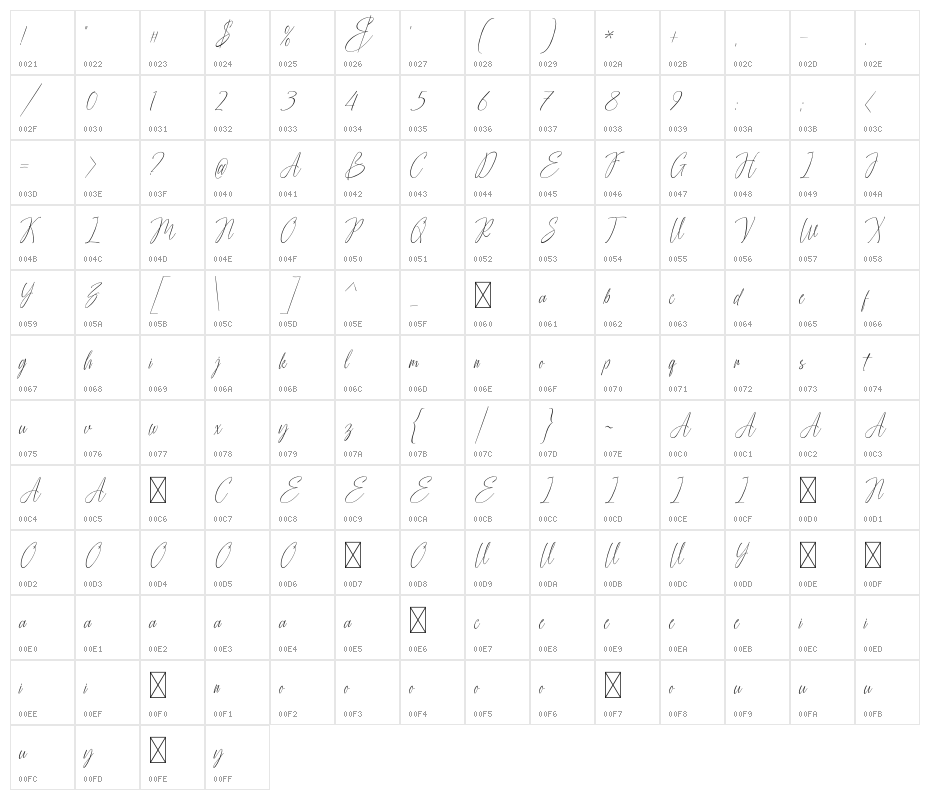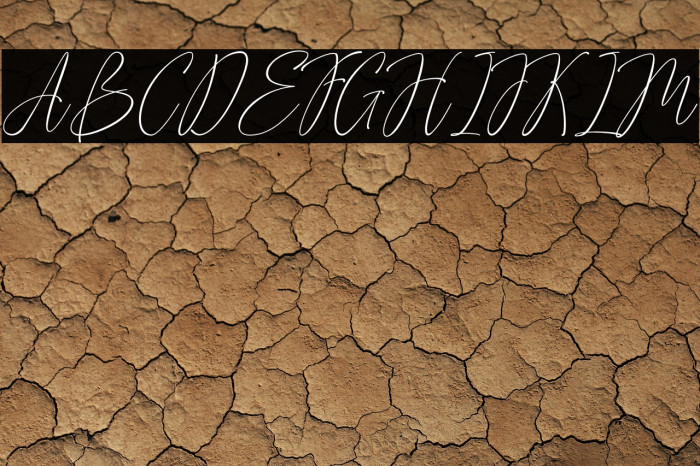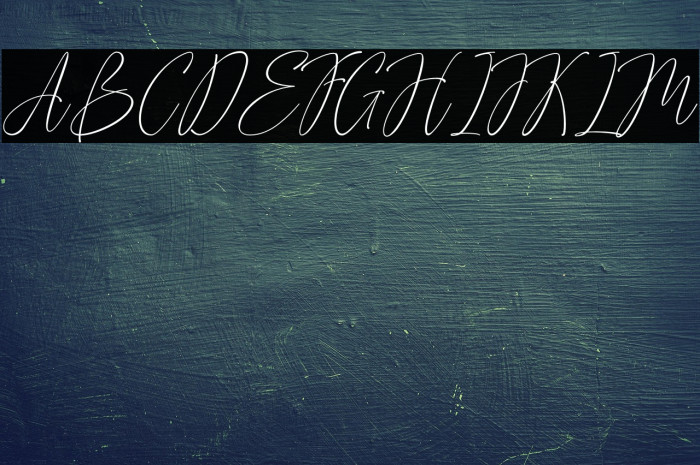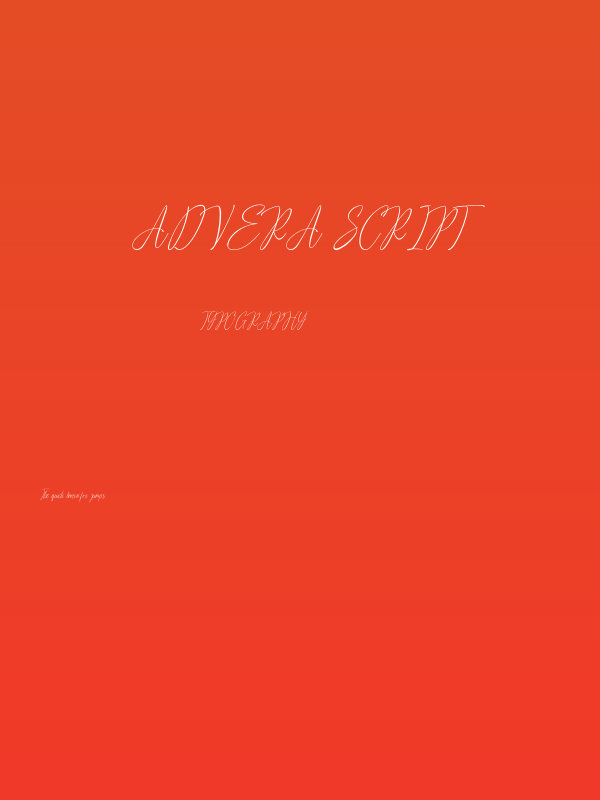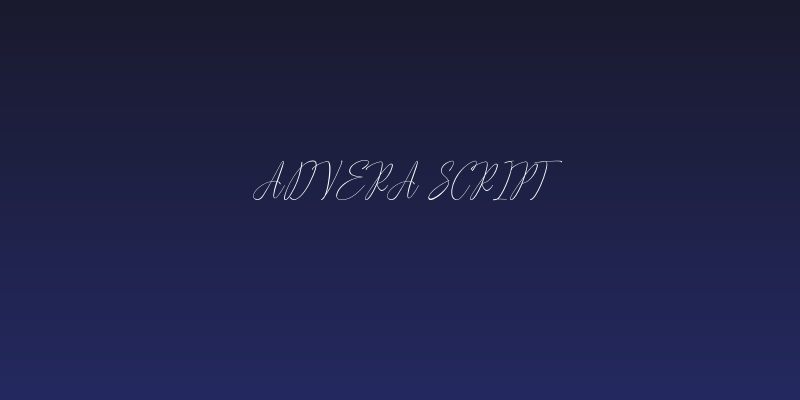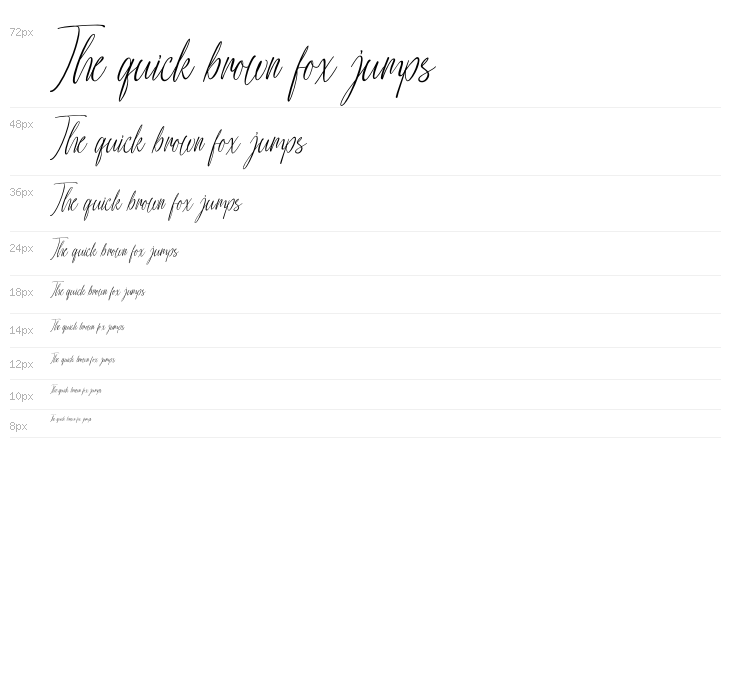
Advera Script Font
Advera Script Description
This elegant script font features fluid, cursive strokes that mimic the natural flow of handwriting. The characters are connected, creating a seamless and sophisticated appearance. The uppercase letters are slightly more elaborate, with graceful loops and swirls, while the lowercase letters maintain a consistent, flowing style. The numerals and special characters are designed to match the overall aesthetic, ensuring a cohesive look across all text. This font is ideal for projects that require a touch of elegance and personal flair.
| Overall Style | Elegant |
| Use Case | Logos, Invitations, Decorative text |
| Proposed Projects | Wedding invitations, greeting cards, personal branding, and elegant product packaging. |